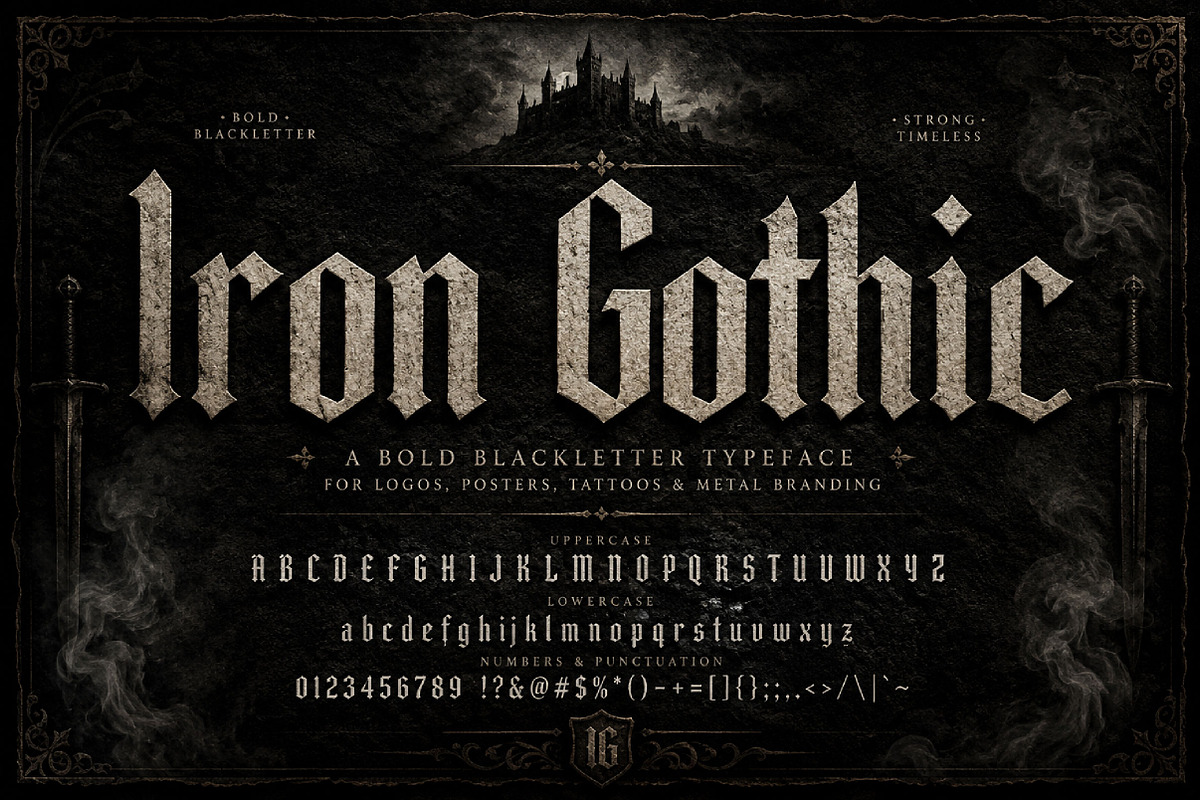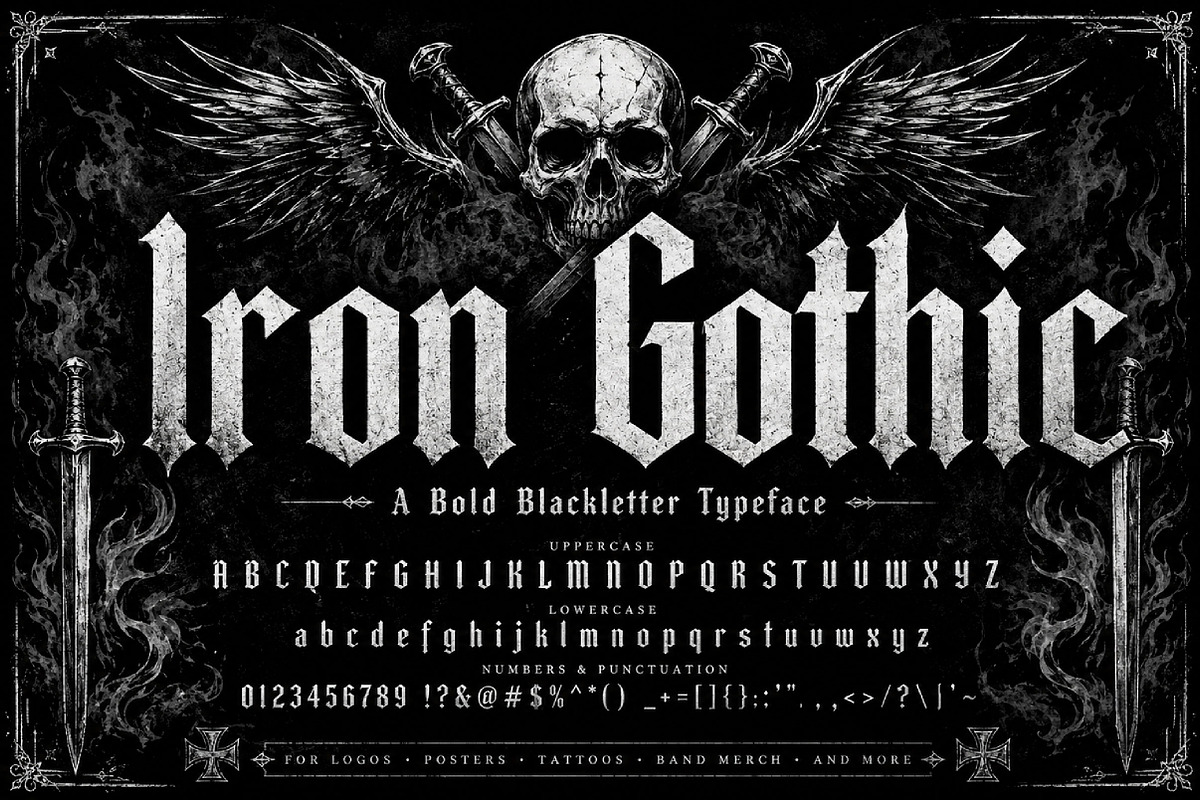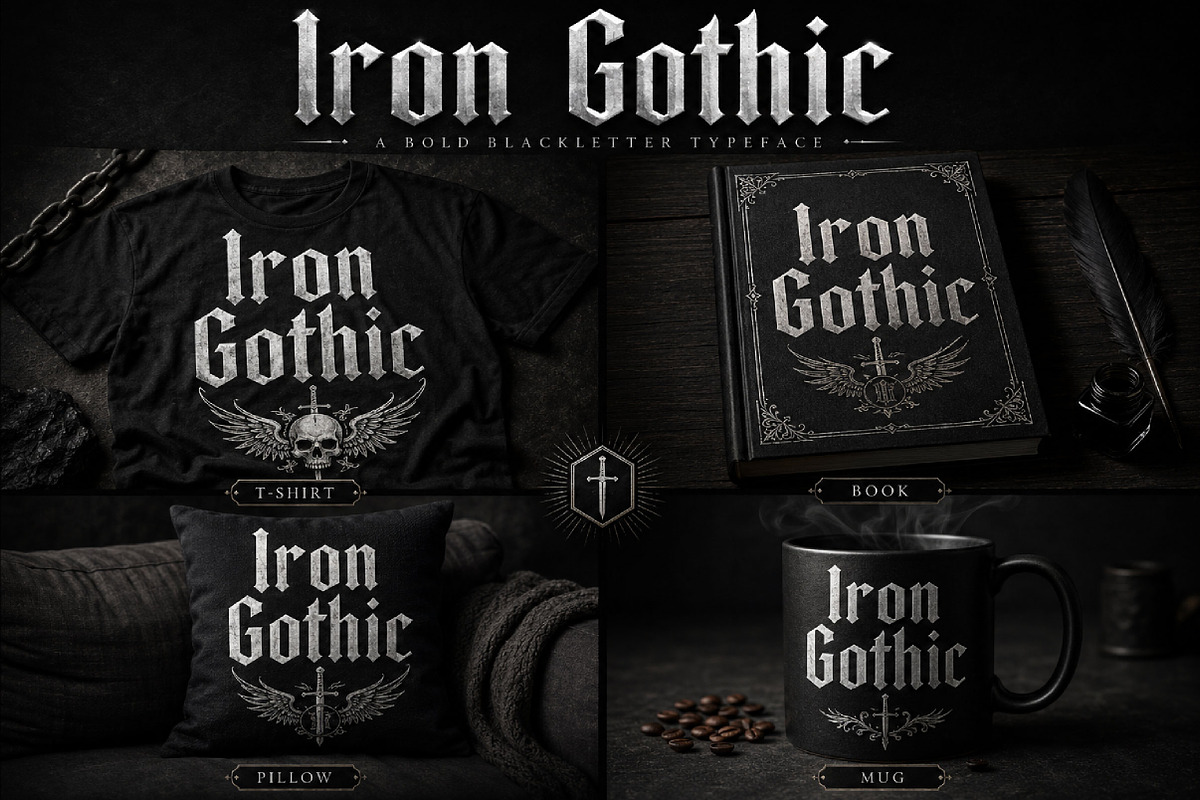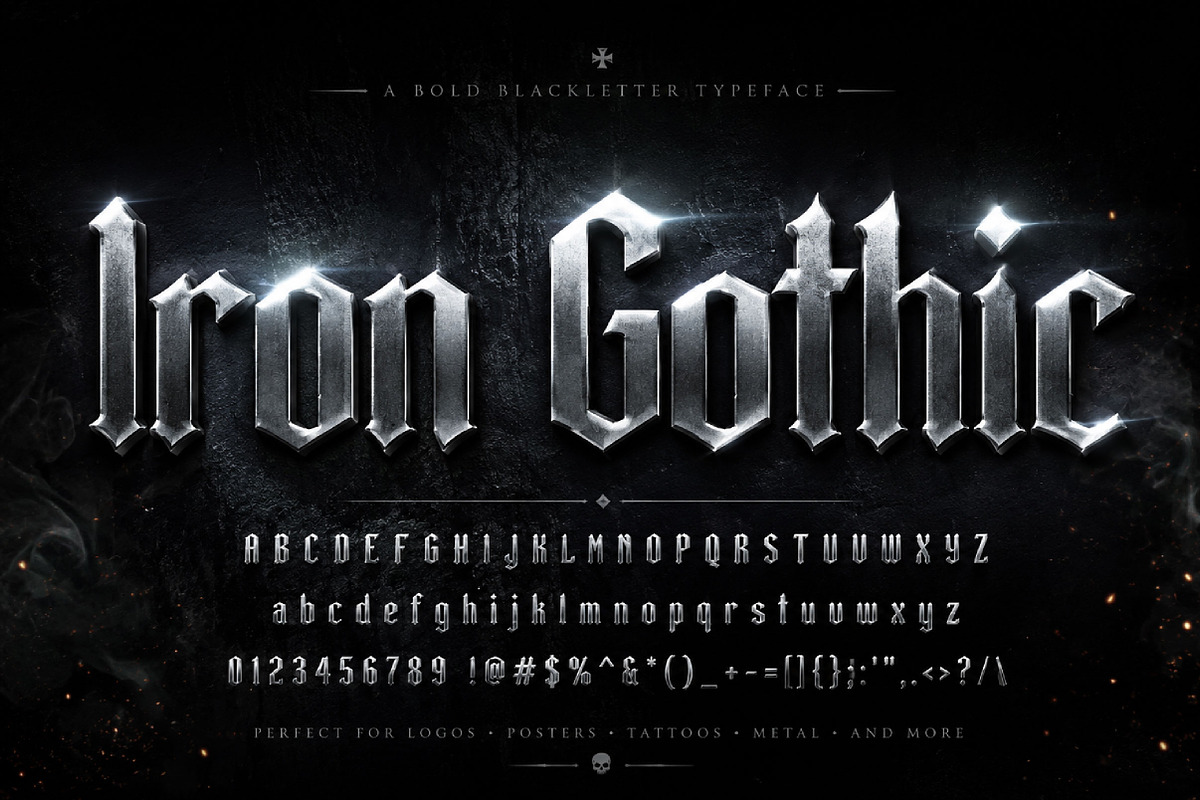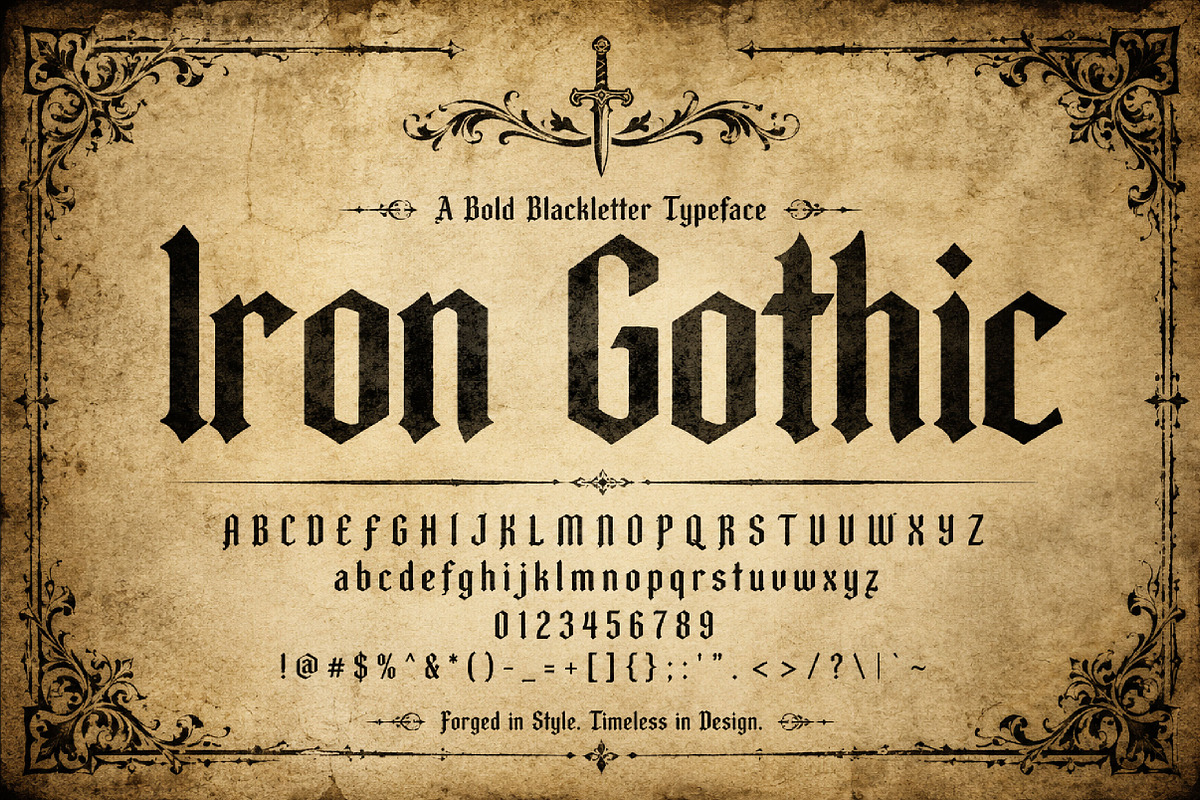
Iron Gothic
Iron Gothic – Bold Blackletter Display Font
Iron Gothic is a bold blackletter display font with sharp gothic letterforms and a strong medieval character, perfect for logos, metal branding, posters, apparel, gaming titles, and dramatic typography.
Iron Gothic is a powerful blackletter display font inspired by classic gothic typography and medieval lettering styles. Designed with bold geometric strokes, sharp edges, and strong vertical structure, this font delivers a commanding and timeless visual presence.
Its dark and dramatic style makes Iron Gothic perfect for heavy metal logos, gaming graphics, streetwear branding, posters, tattoo-inspired artwork, album covers, merchandise, and fantasy-themed projects. The clean yet aggressive blackletter construction creates a bold identity that stands out in both modern and vintage-inspired designs.
Iron Gothic combines traditional gothic aesthetics with a modern display feel, making it highly versatile for creative projects that require strength, elegance, and impact. Whether used for print or digital media, this font adds a fearless and iconic personality to your typography.
Metal band logos
Gothic branding
Gaming titles
Streetwear & apparel
Posters & flyers
Album covers
Merchandise design
Tattoo-inspired graphics
Fantasy projects
Medieval-themed artwork
Bold display typography
Dramatic headlines
Uppercase letters
Lowercase letters
Bold blackletter style
Sharp gothic details
Medieval-inspired design
Strong geometric structure
High-impact display appearance
Perfect for logos and titles
Suitable for print and digital use